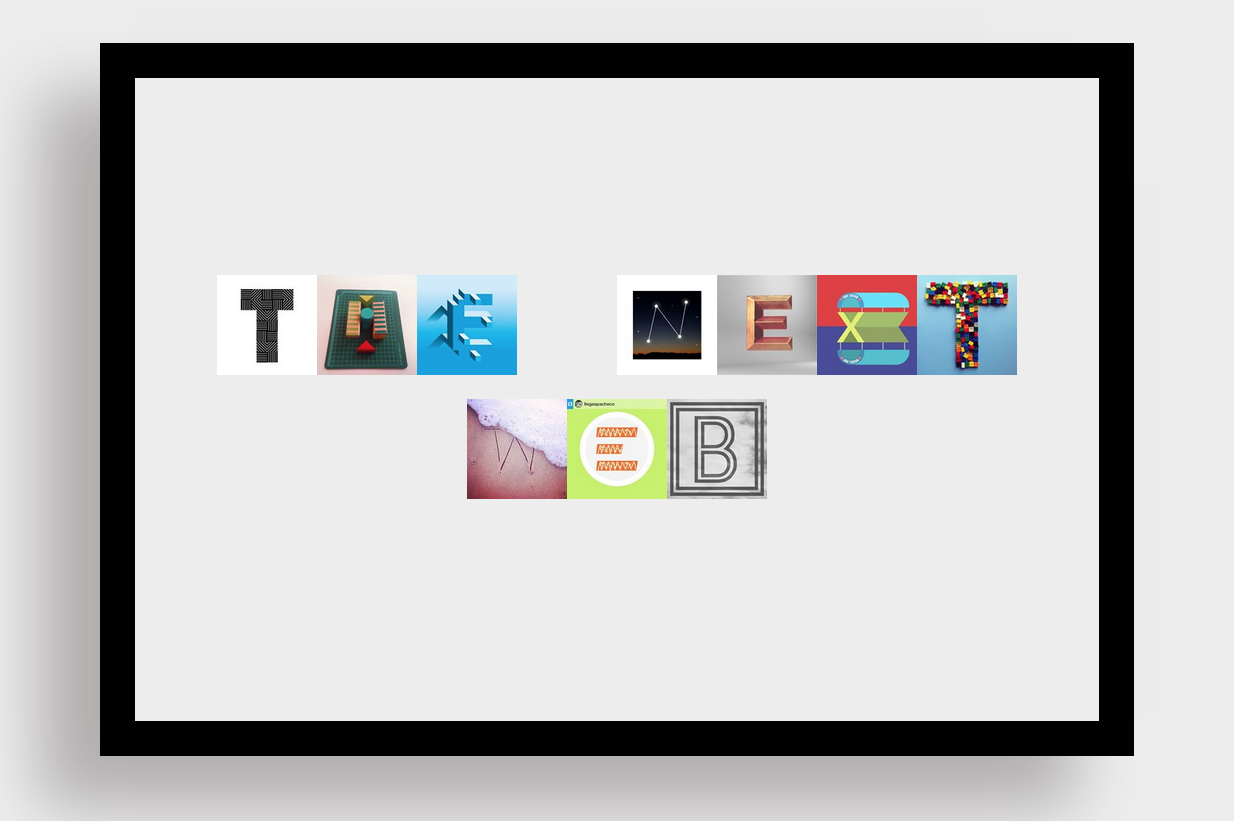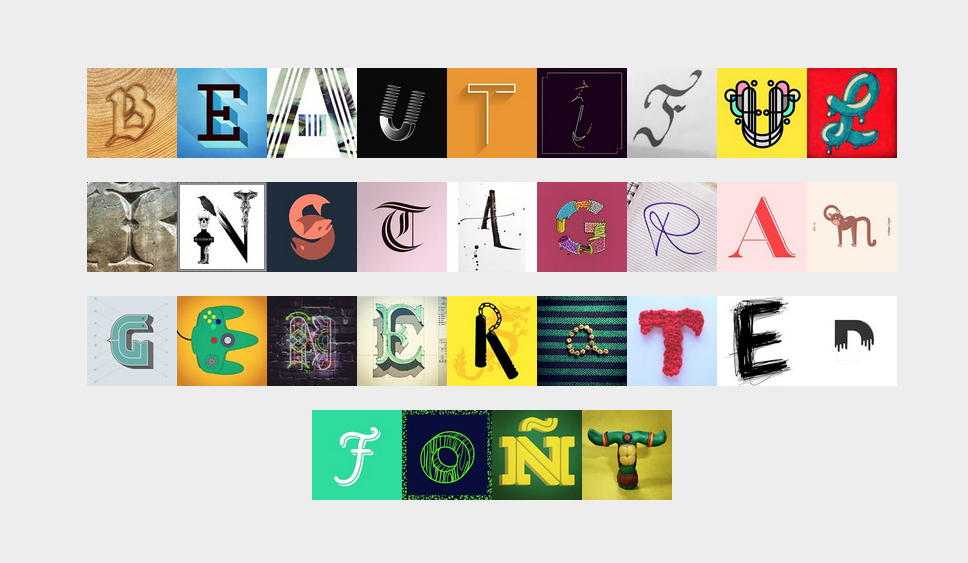
A font made out of Instagram images
There are a lot of interesting ways to use Instagram for more than just selfies and food. This creative website takes Instagram photos and turns them into a unique font.
Type To Design curates letterforms taken on Instagram as part of the 36 Days of Type project which challenges creative designers and illustrators to capture creative letterforms and numbers in all different types of styles.
You simply go to the site and start typing what you would like to appear in Instagram letters. If you don’t like a particular letter, you can click it and a new one will generate for you.
If you simply want to browse all of the beautiful and creative letterforms that the site uses, you can scroll through the 36 Days of Type Instagram page.
This is a great site to create custom typography for your name, quotes, or other unique uses. The creativity is endless.